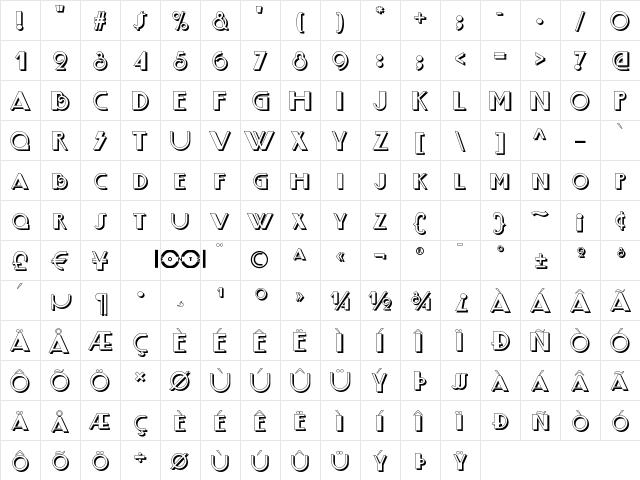
Boogie Nights NF Shadow
Style: Shadow
Foundry: Nick's Fonts
Designer: Nick Curtis
Design Context for Boogie Nights NF
Boogie Nights NF is built around its visual character rather than neutral utility - its distinctive forms are designed to make an impression at display sizes.
Font Pairing: Pair with a clean neutral sans-serif for body copy to let Boogie Nights NF's character lead without overwhelming the composition.
Pro Tip: Use Boogie Nights NF exclusively at display sizes - it was designed to be seen, not read at length. Let a neutral companion handle body copy.